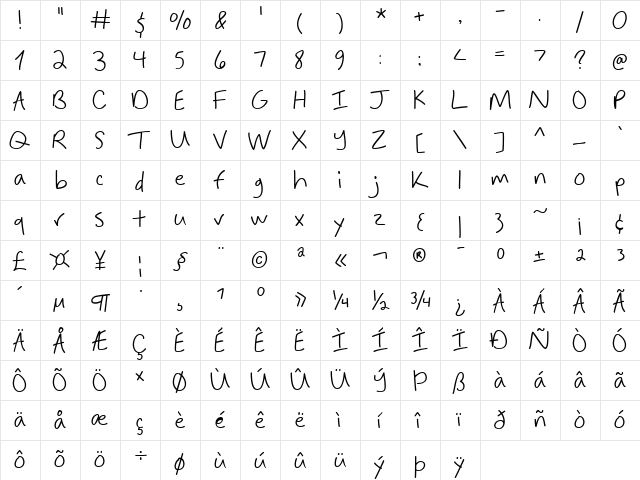
Bright Azure Regular
| Foundry | Misti's Fonts |
| Designer | Misti's Fonts |
Design Context for Bright Azure Typeface
Bright Azure is a composed and adaptable typeface that performs quietly and consistently across a wide range of design contexts.